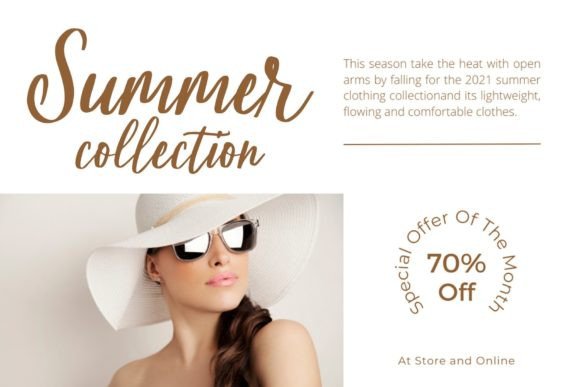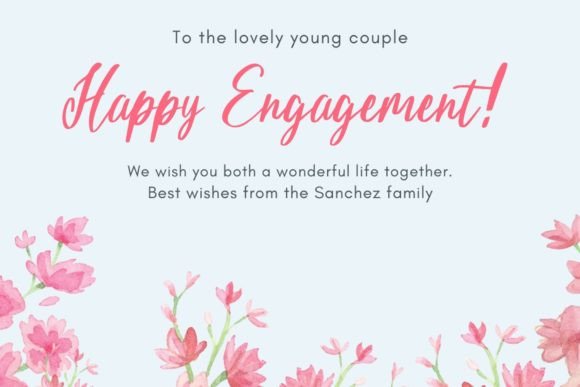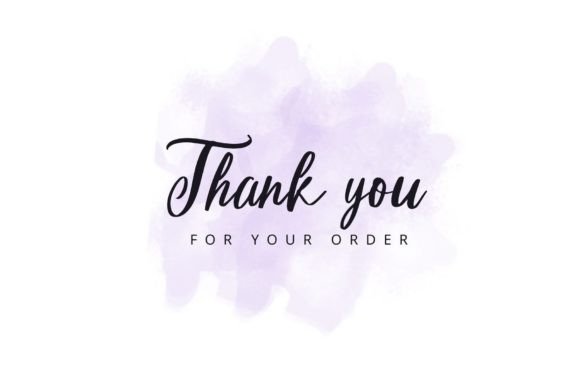
Histogram Font
About Histogram Font
**Histogram** is a delicate and elegant handwritten font that captures the essence of grace and sophistication. Its flowing strokes and well-balanced characters make it a versatile choice for a wide variety of design projects. By incorporating Histogram into your creative ideas, you can breathe life into them, enhancing their visual appeal with a touch of elegance and refinement.
One of the standout features of Histogram is its delicacy. The font’s intricate details and smooth letterforms create a sense of beauty and charm. Histogram is perfect for projects that require a touch of sophistication, such as wedding invitations, luxury branding, high-end packaging, or any design that aims to convey an air of elegance. Its delicate demeanor adds a sense of refinement and class, making your designs stand out with grace and style.
The font’s flowing and well-balanced characters ensure that the text is visually harmonious and pleasing. Whether used in headlines, body text, or decorative elements, Histogram maintains a sense of balance and elegance. Its versatility allows it to complement various design elements, creating visually stunning compositions. The font’s timeless appeal makes it suitable for both classic and contemporary design styles, ensuring its relevance across different aesthetics.
Histogram’s PUA encoding provides easy access to a wide range of glyphs and ligatures, allowing you to customize and enhance your designs effortlessly. This feature enables you to create unique and personalized typographic compositions, adding a bespoke touch to your projects. Whether you’re working on branding, invitations, editorial layouts, or any other creative endeavor, Histogram’s flexibility and accessibility make it a valuable asset in your font library.
In summary, Histogram is a delicate, elegant, and flowing handwritten font that enriches your creative ideas with sophistication and charm. Its well-balanced characters and versatility make it a valuable choice for designers seeking to add a touch of timeless beauty to their projects. By incorporating Histogram into your designs, you can achieve a level of elegance that captivates the audience and brings your creative visions to life with grace and finesse.